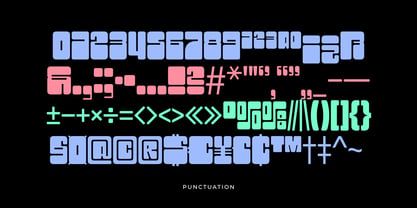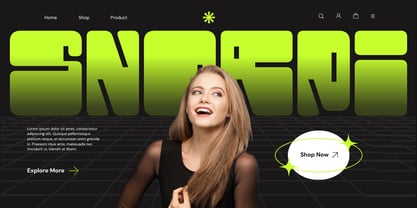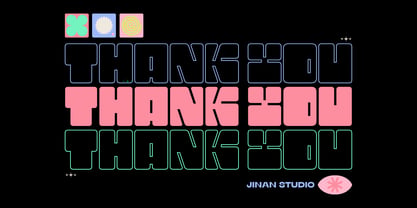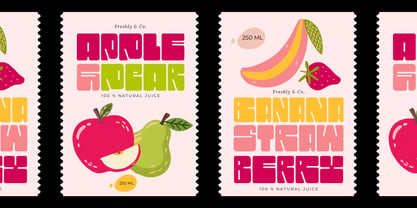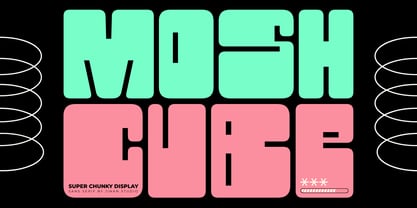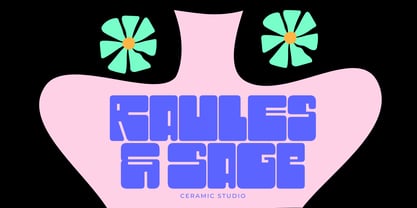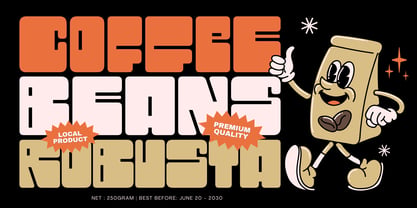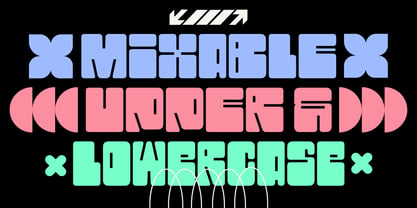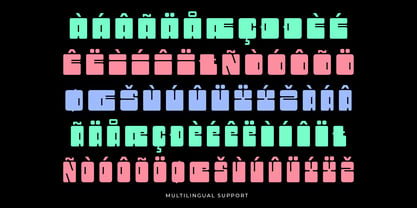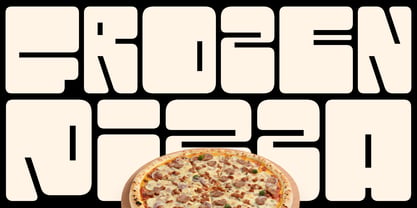
Mosh Cube
Mosh Cube is a super chunky display sans serif that brings bold personality and playful geometry into every design. Featuring oversized proportions, ultra-thick strokes, and smooth rounded corners, this typeface delivers a striking visual impact while maintaining a clean, modern aesthetic. Unique cut-out details on each character add a distinctive touch, making every letter feel fresh, memorable, and full of character.
Designed for designers who want to make a statement, Mosh Cube is perfect for eye-catching headlines, logos, branding, posters, packaging, social media graphics, and editorial layouts. Its friendly yet powerful appearance makes it an excellent choice for fashion brands, streetwear, food packaging, creative agencies, music events, children's products, and contemporary visual identities.
Whether you're creating vibrant branding or bold promotional materials, Mosh Cube helps your typography stand out with confidence, creativity, and modern style.
Features
• Uppercase & Lowercase
• Numbers & Punctuation
• Multilingual Support